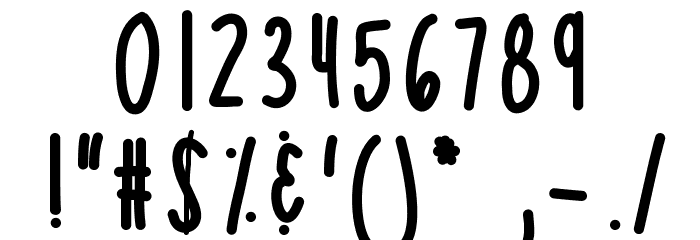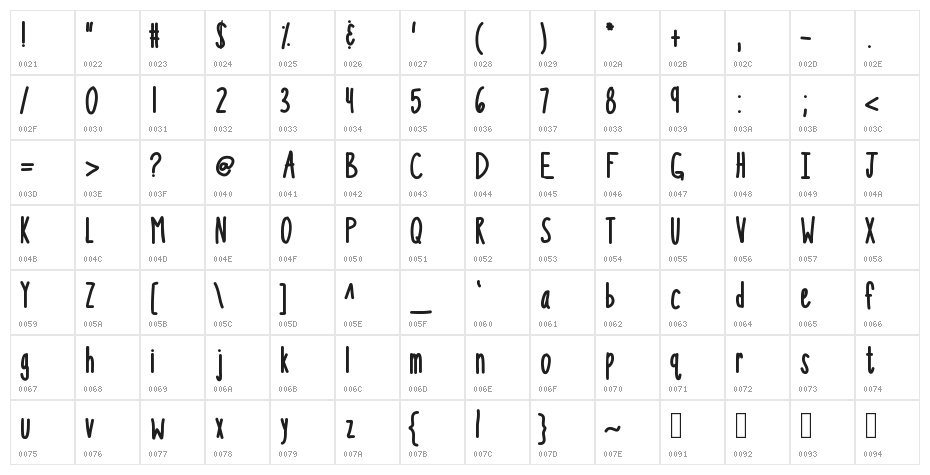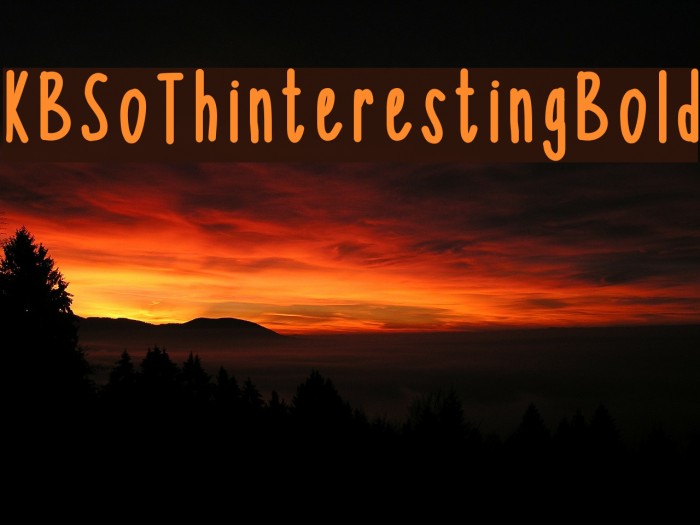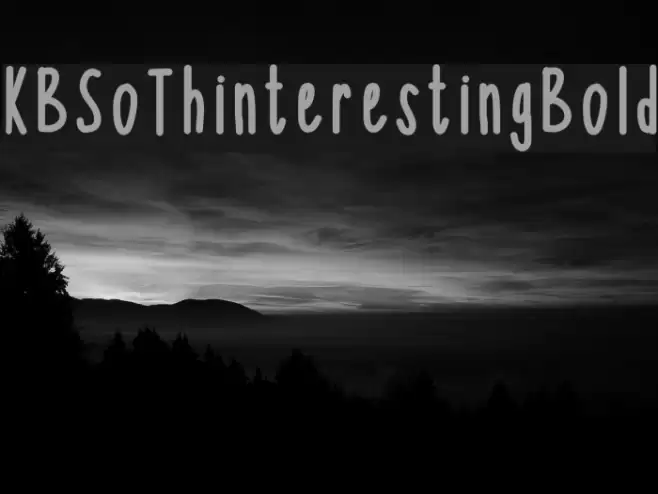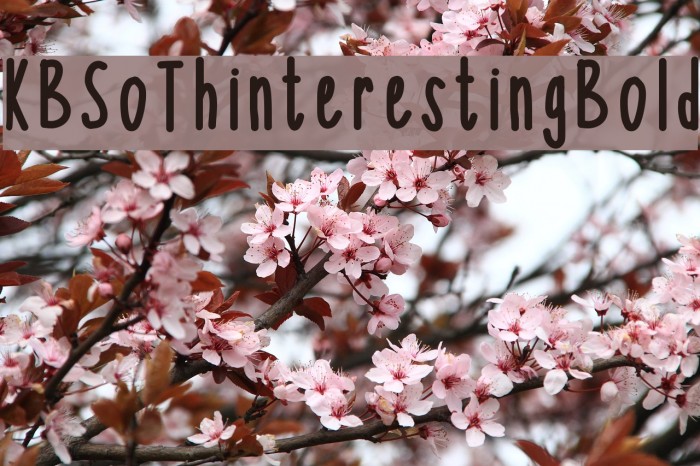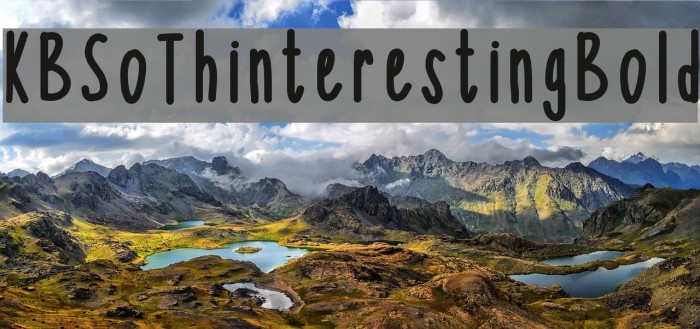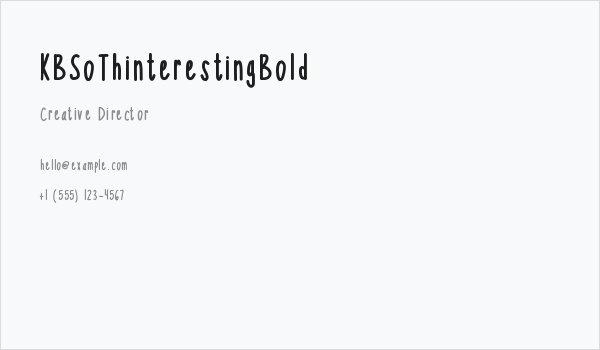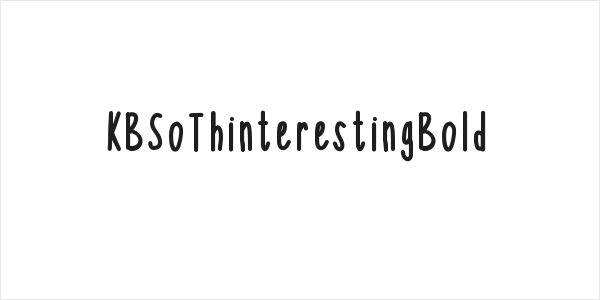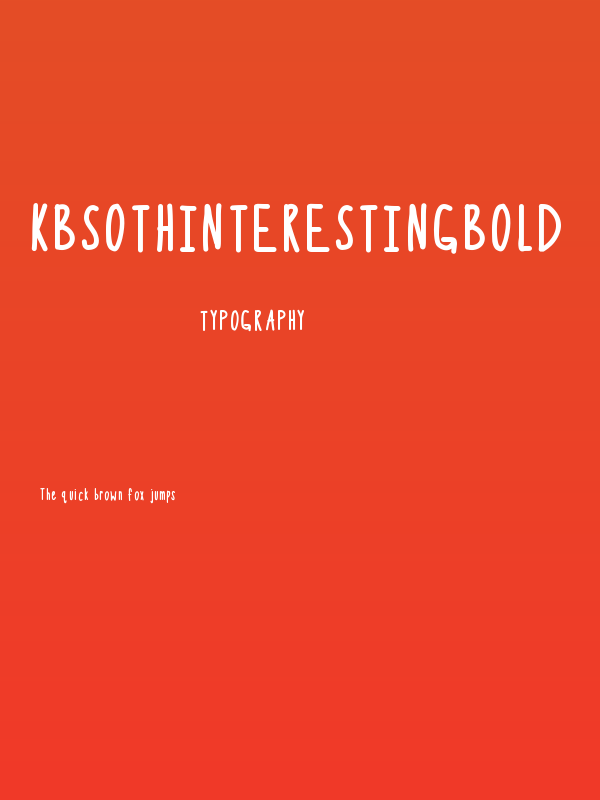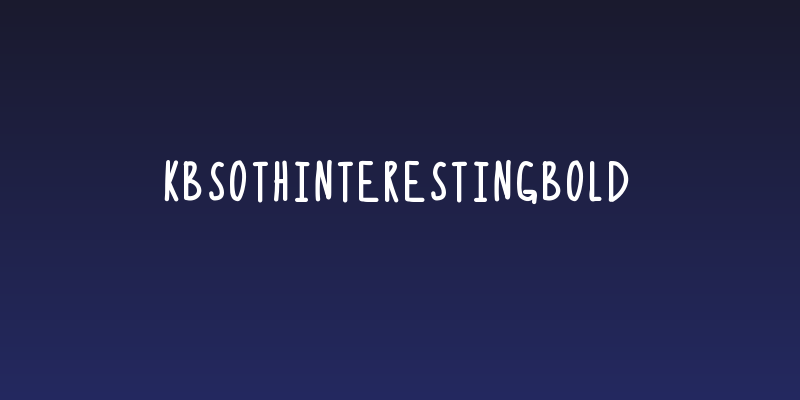
KBSoThinterestingBold Font
KBSoThinterestingBold Description
This font features a playful and bold handwritten style with a casual and friendly appearance. The letters are slightly irregular, adding a whimsical touch to the overall design. The uppercase and lowercase characters maintain a consistent height, while the numbers and special characters complement the alphabet with a similar playful aesthetic. The strokes are thick and rounded, contributing to the font's boldness and making it highly legible. This font is ideal for projects that require a fun and approachable look, such as children's books, greeting cards, or playful branding materials.
| Proposed Projects | Ideal for children's books, greeting cards, playful branding, and casual invitations. |